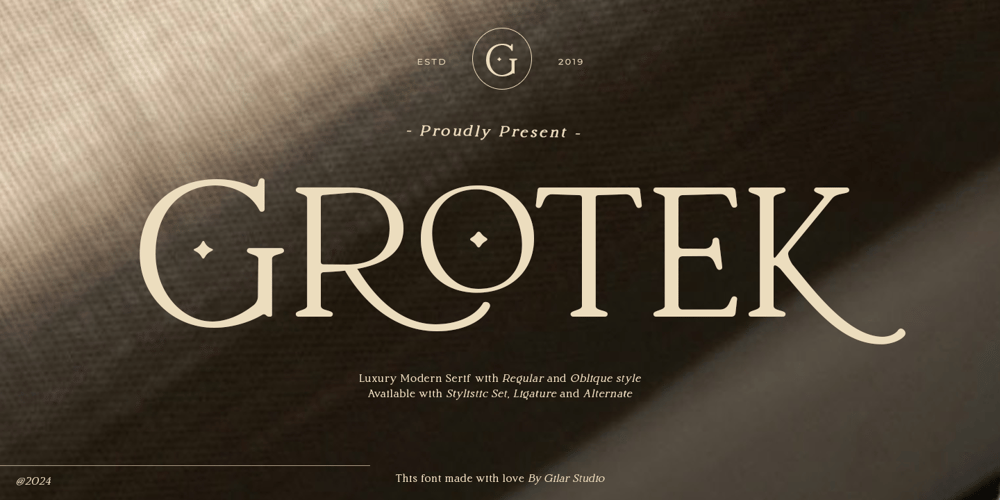
Grotek Font Family was designed by Gumilar Pratama Adiatna and published by Gilar Studio. Grotek contains 2 styles and family package options. introducing Grotek – Luxury Modern SerifGrotek with 2 style Regular And Oblique. will work perfectly for fashion, e-commerce brands, trend blogs, wedding boutiques or any business . suitable for short or long text.Grotek also Suitable for Logo, greeting cards, quotes, posters, branding, name card, stationary, design title, blog header, art quote, typography, art, modern envelope lettering or book design, craft design, any DIY project, book title, or any purpose to make your art/design project look pretty and trendy..What you get, darling?Features : Uppercase & Lowercase Numerals & Punctuations Accents/Multilingual characters Beautyful Ligature PUA Encoded To access all OpenType Stylistic alternates, you need a program that supports OpenType features such as Adobe Illustrator, Adobe Photoshop, CorelDraw and Microsoft word.Feel Free contact me if u any question. Give it a try! You will surely love it ! Thanks and have a wonderful day, Gilar ๐